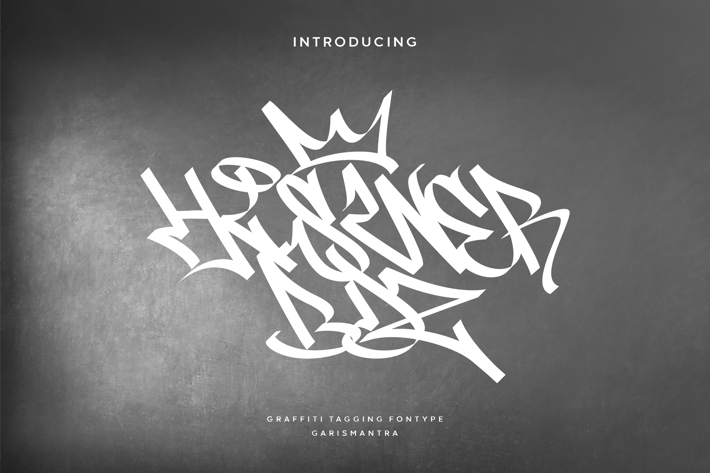
Graffiti Fonts | Tagging Vol.1
Hiswer BDZ, comes with a typical street art calligraphy style or graffiti tag. The urban theme, contemporary art pop culture is very suitable for various designs such as t-shirt designs, merchendaise, flyers and signatures. Hiswer BDZ is a timeless font, always looking modern and youthful. Take it now, unleash your creativity with it.